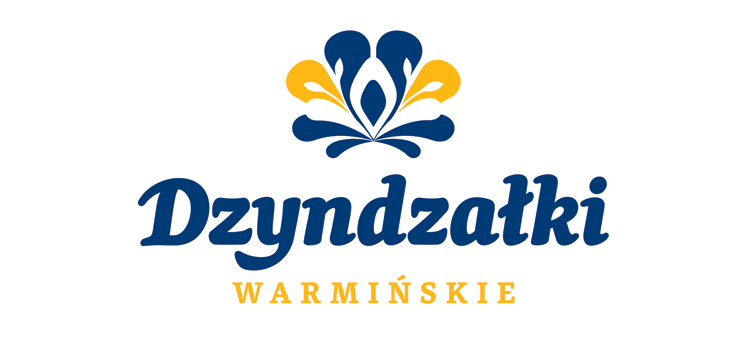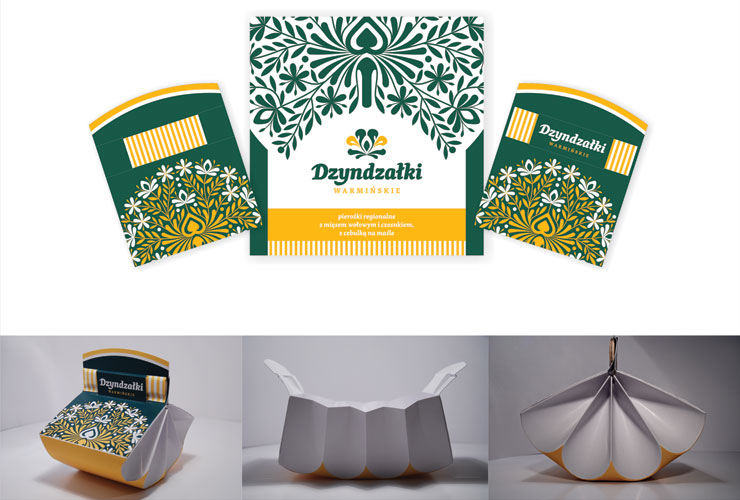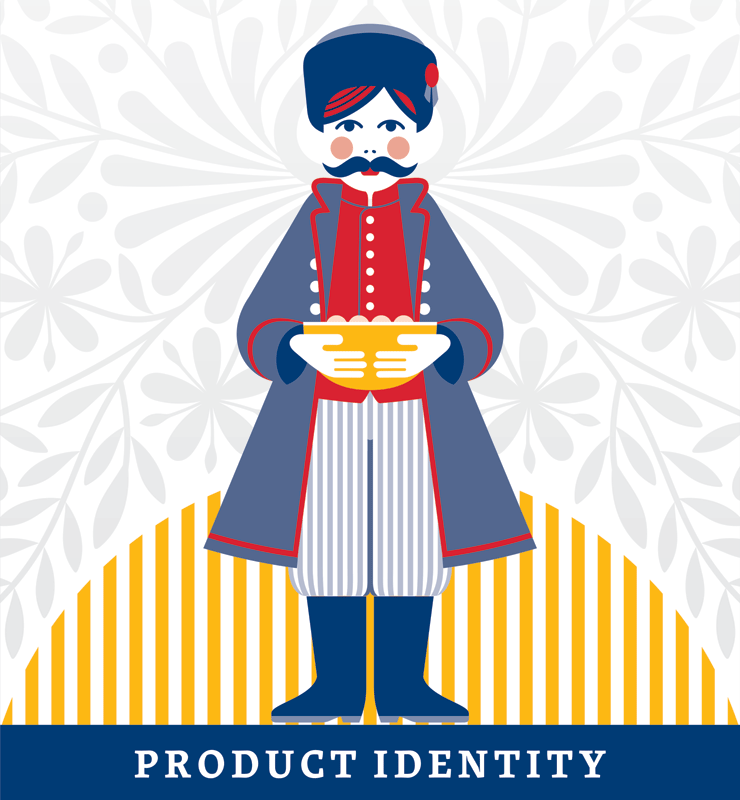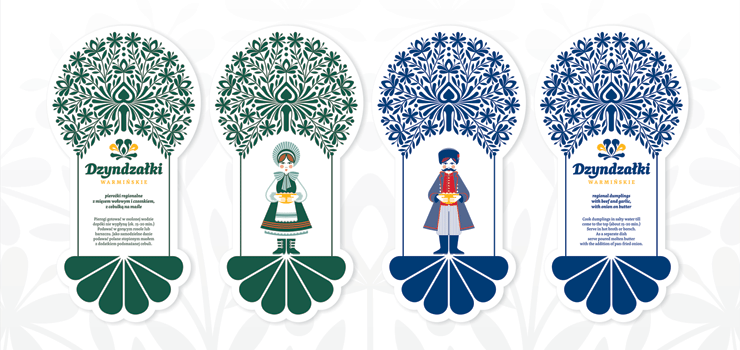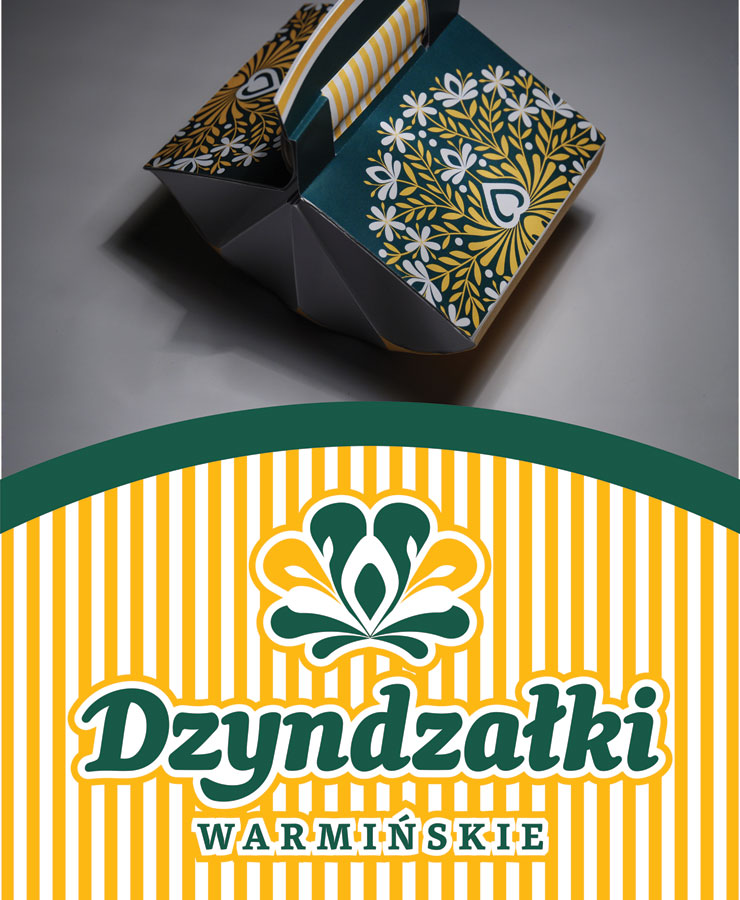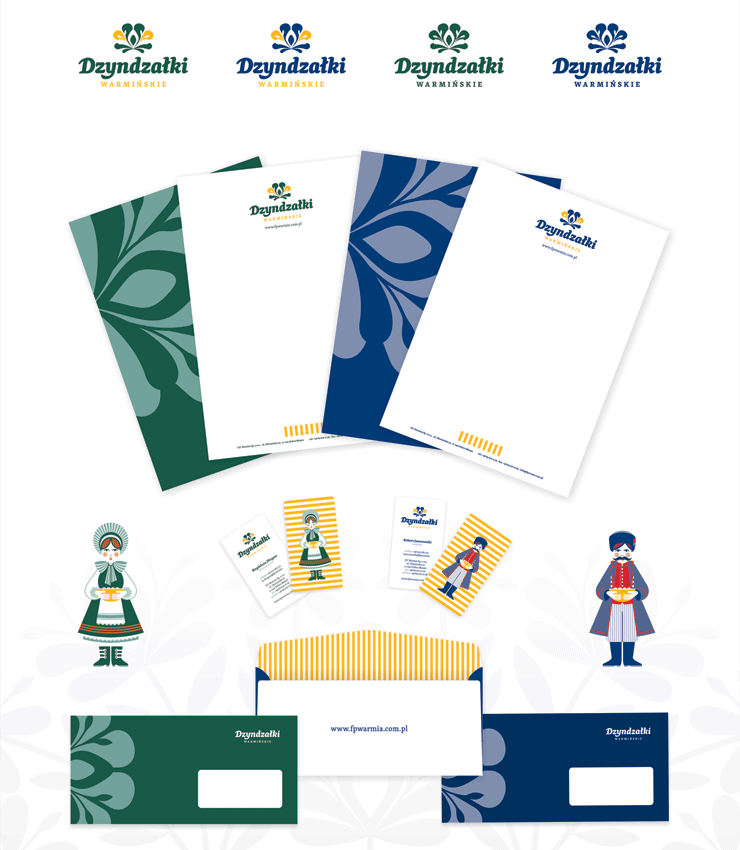
Polish graphic designer, Anna Giedryś, chose Skolar for one of her recent projects. It is a corporate identity visualised in all communication materials and products, for the regional pirogi-producer Dzyndzałki Warmińskie. For the logotype, she beautifully created a custom, softer version of Skolar. The overall design of the packaging and the patterns are inspired by folklore fine arts.